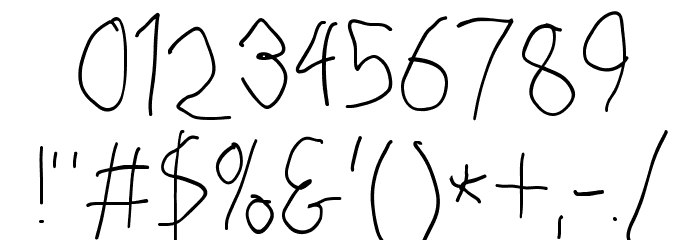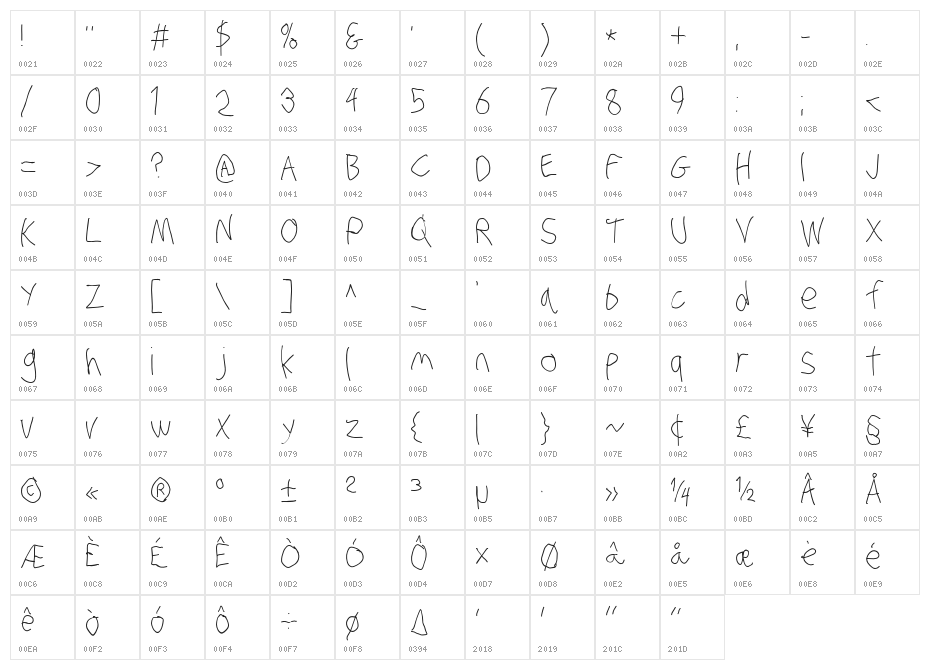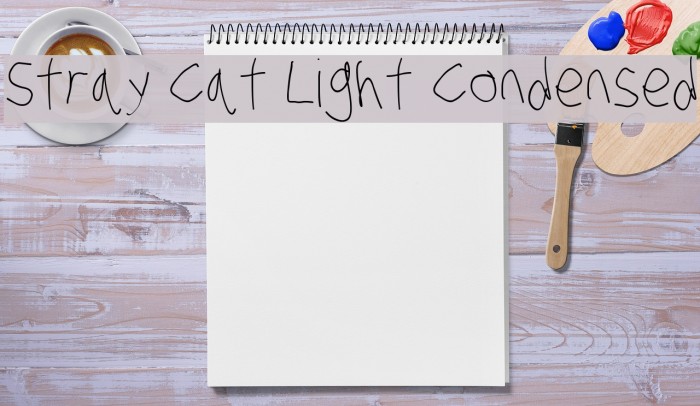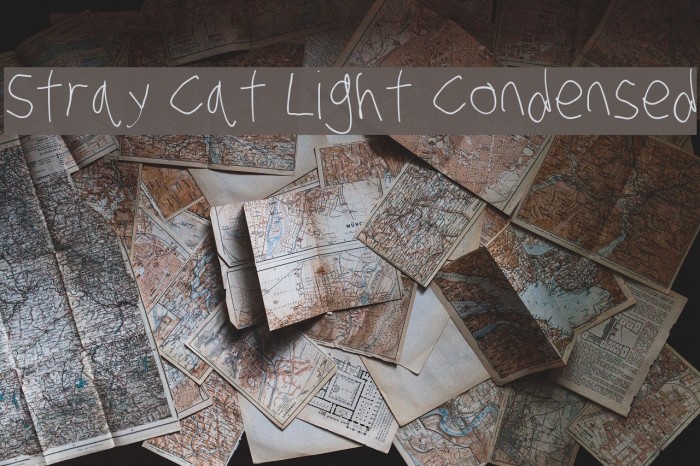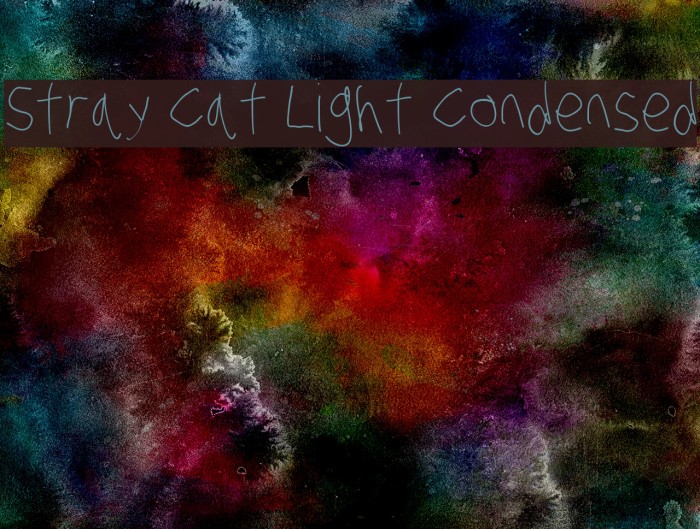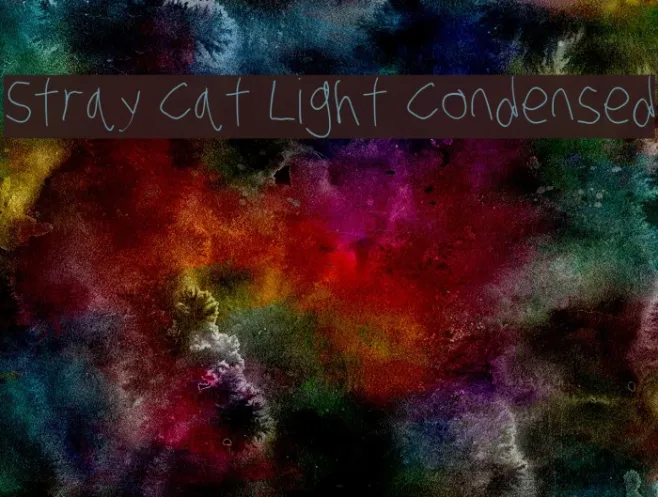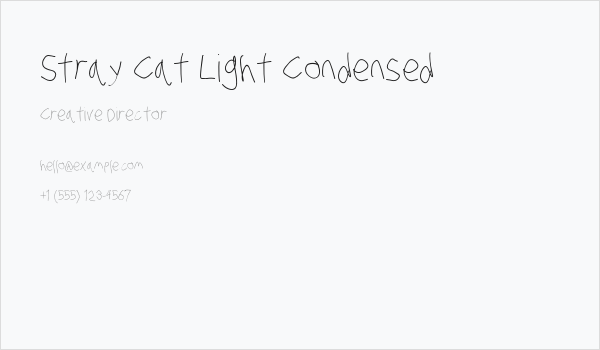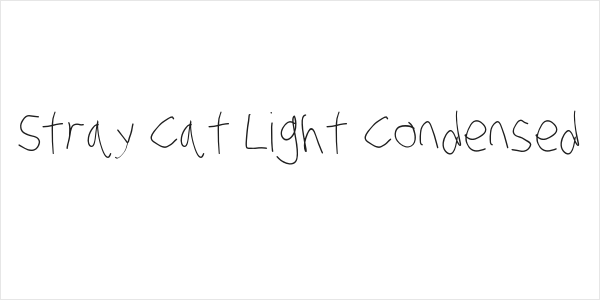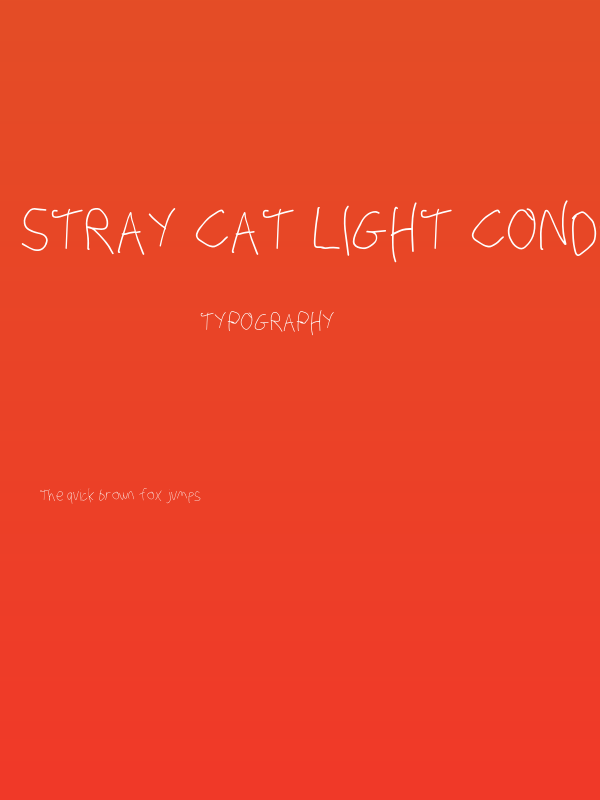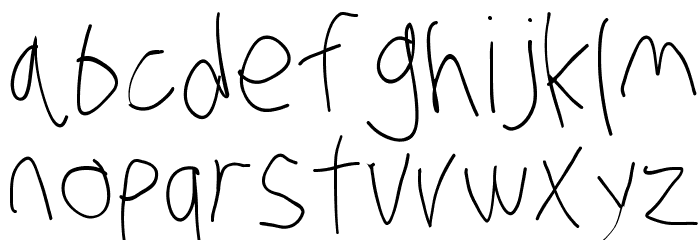
Stray Cat Light Condensed Font
Stray Cat Light Condensed Description
This font features a playful, handwritten style with a light and airy feel. The characters are slightly condensed, giving it a unique and casual appearance. The strokes are uneven, adding to its charm and making it ideal for informal and creative projects. The uppercase and lowercase letters maintain a consistent flow, while the numbers and special characters complement the overall style. This font exudes a sense of spontaneity and creativity, perfect for projects that require a personal touch.
| Proposed Projects | Ideal for greeting cards, children's books, personal blogs, and creative branding. |